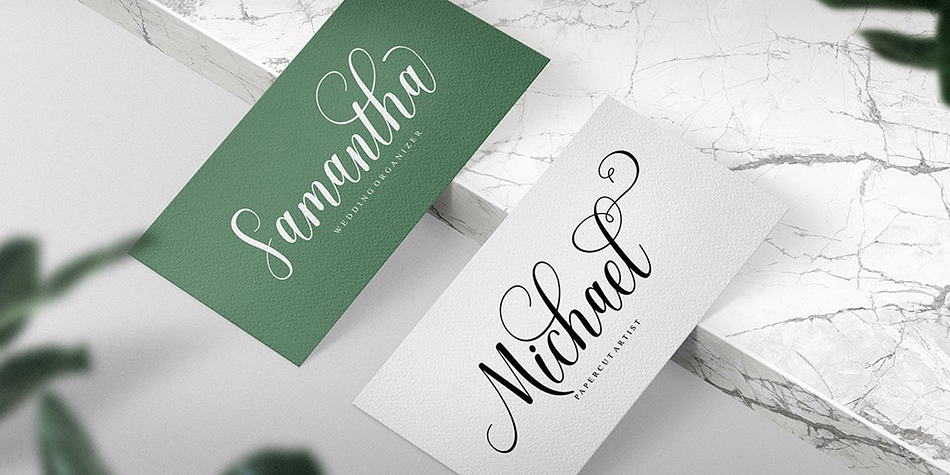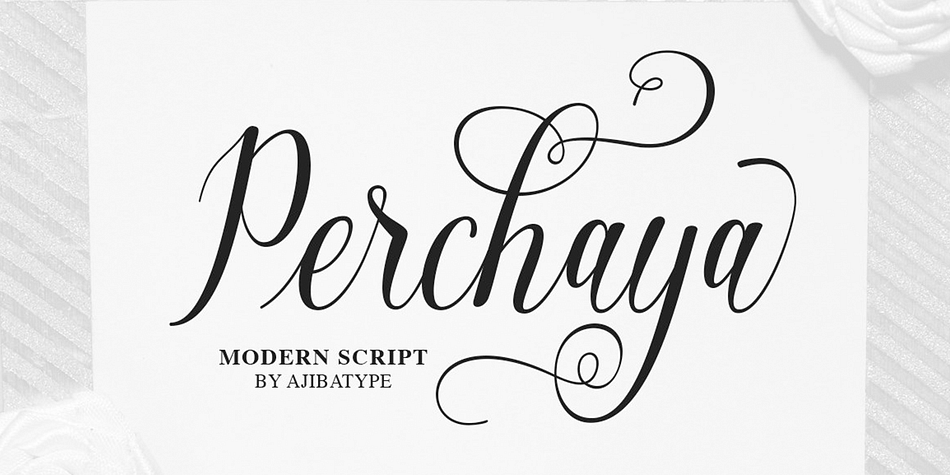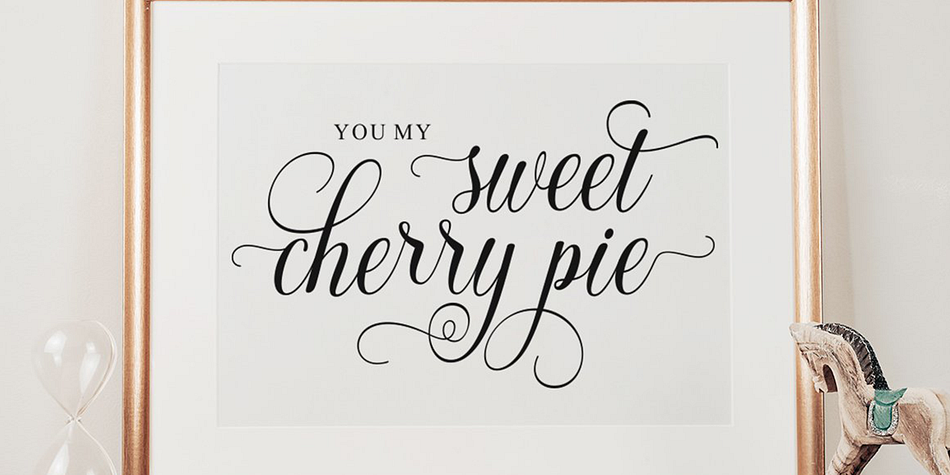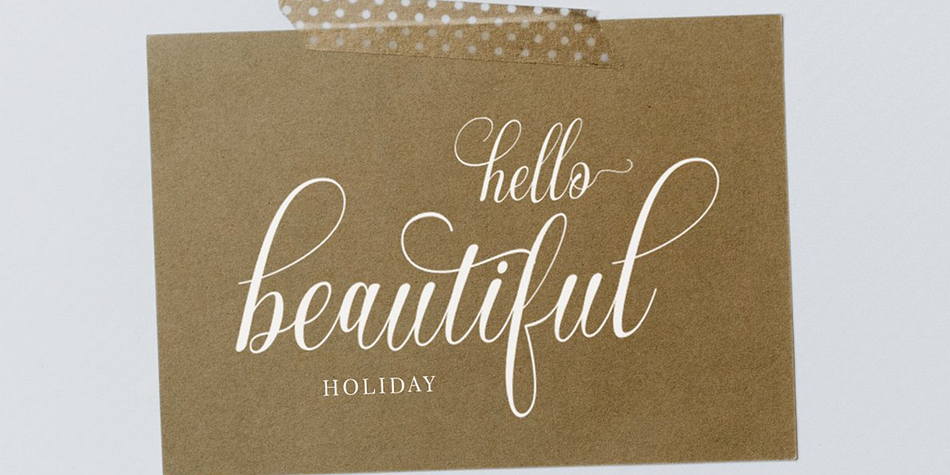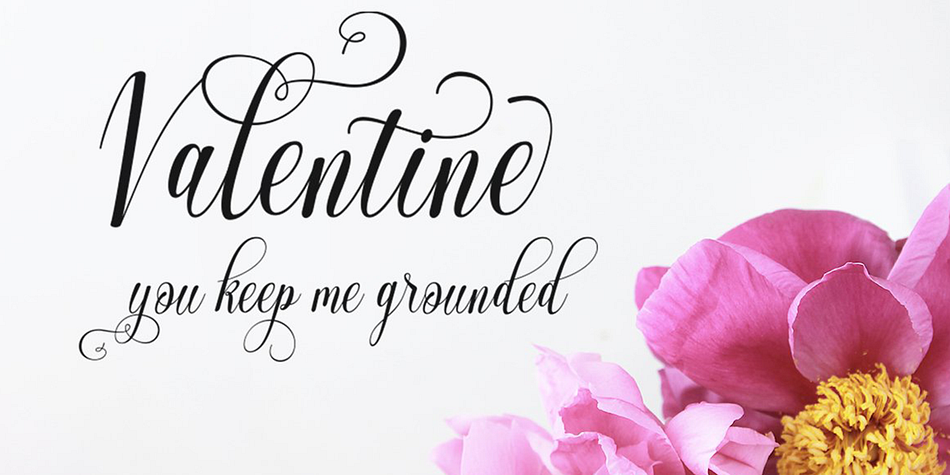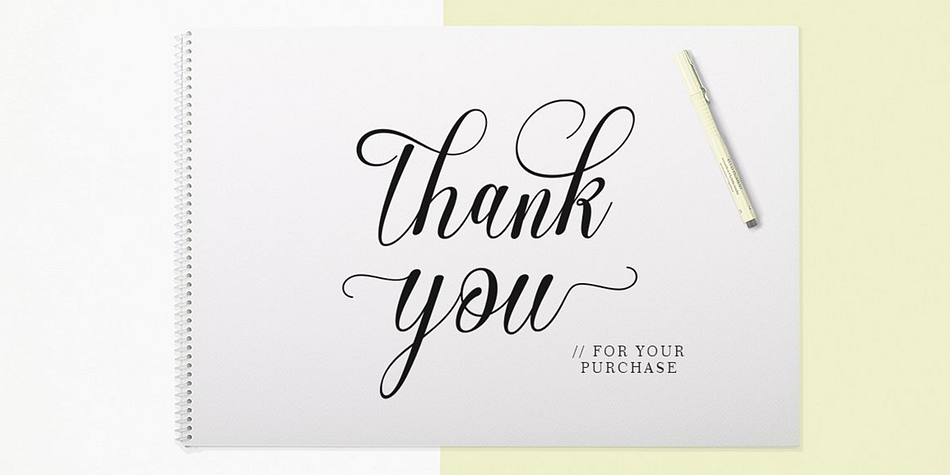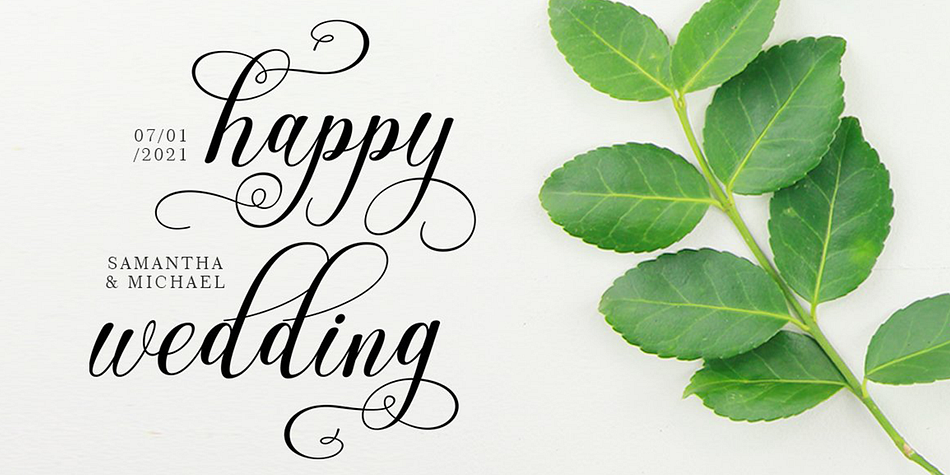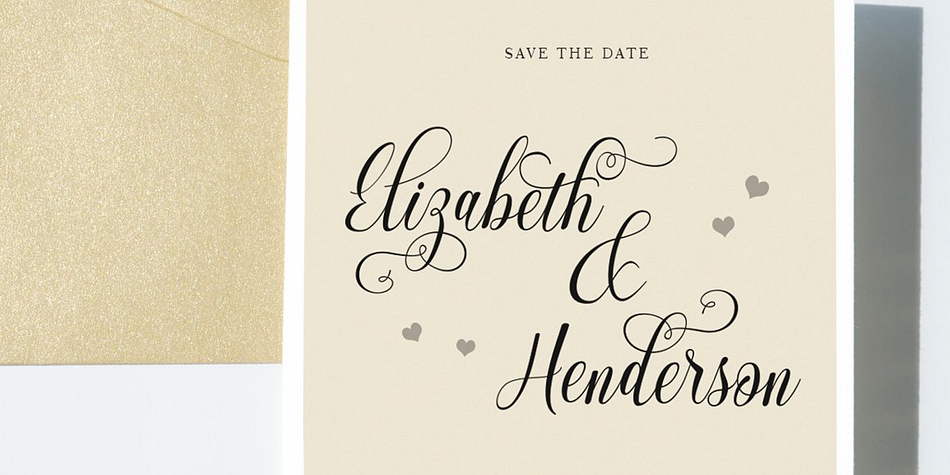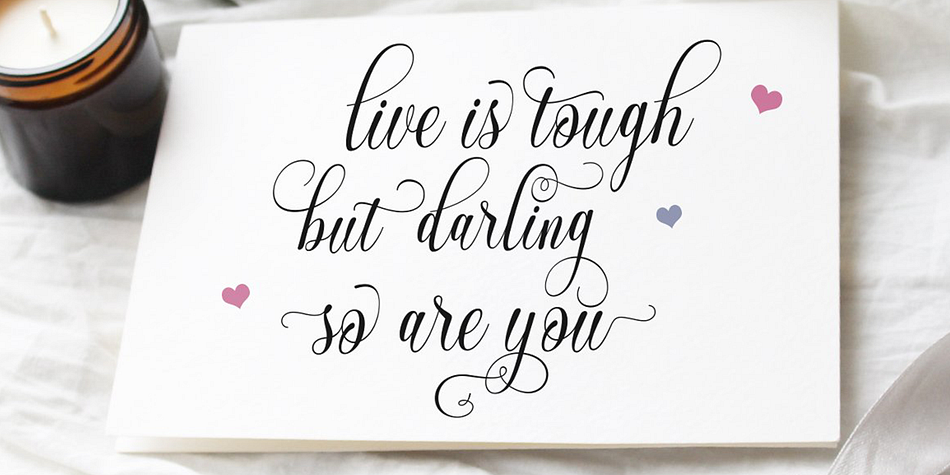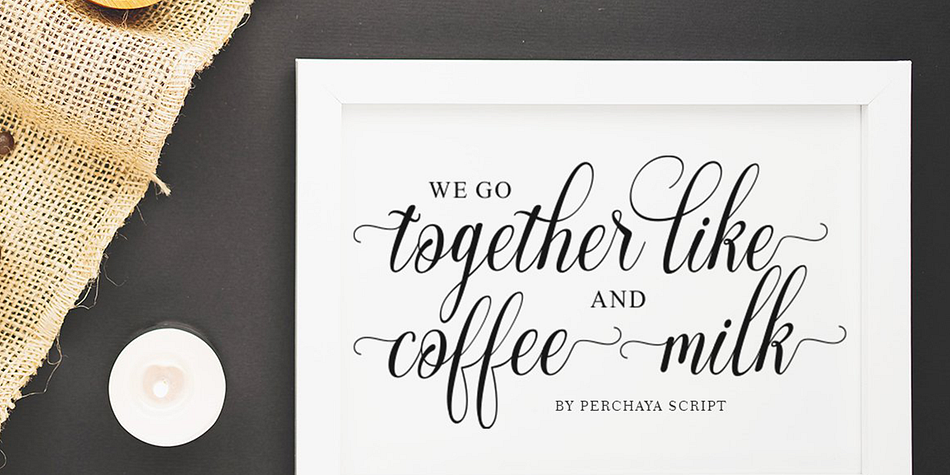
Perchaya Script
Perchaya Script is a modern calligraphy and script font published by Ajibatype.
Perchaya Script is a clean and beautiful modern script font. Featuring lovely swash with irregular baseline. No matter the topic, this font will be an incredibly asset to your fonts’ library, as it has the potential to elevate any creation. Perchaya Script is PUA encoded which means you can access all of the glyphs and swashes with ease!